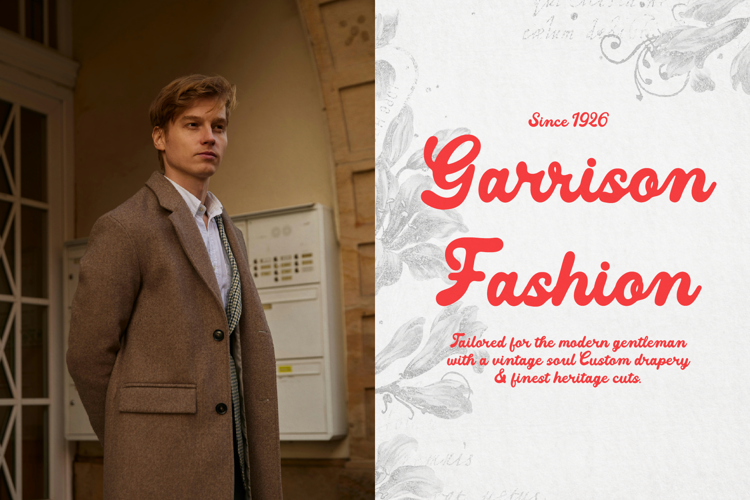
Cherished Darling Font
Cherished Darling | Vintage Bold Script, is suitable for any projects such as: logos, branding projects, homeware designs, product packaging, mugs, quotes, posters, shopping bags, t-shirts, book covers, name card, invitation cards, greeting cards, label, photography, watermark, special events, and all your other lovely projects that need a Script f taste.